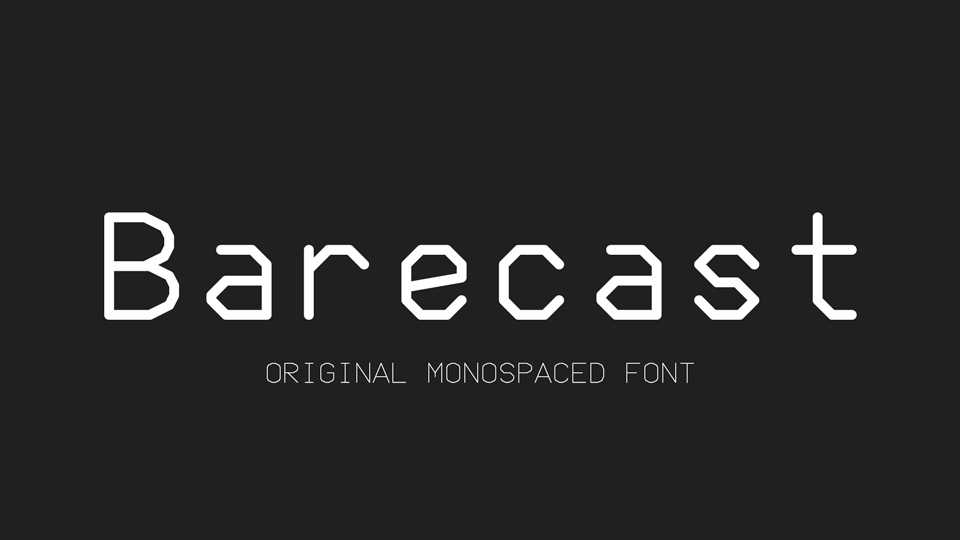
Download Barecast typefcae, an original monospaced font family in two weights designed with inspiration from silk screen printing on PCB.
Designer: Kami Wataru